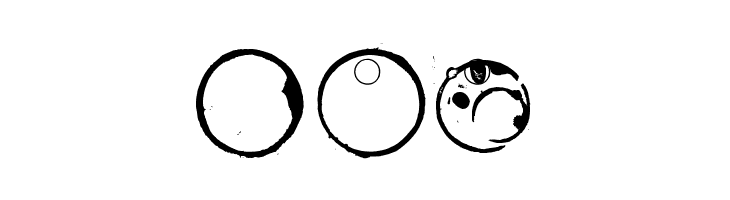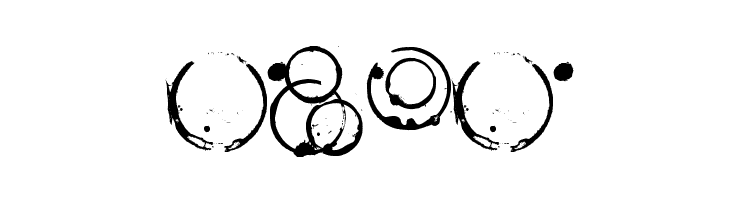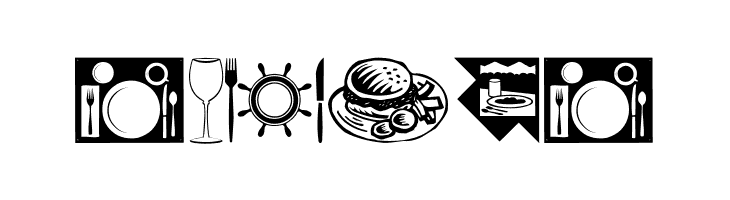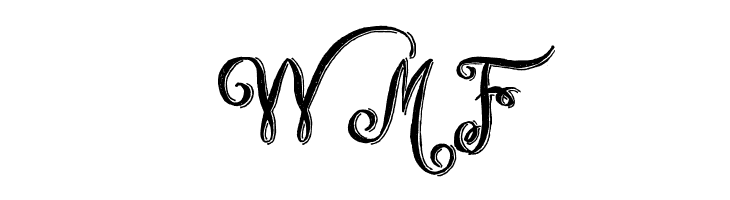
A bold decorative icon font with food and dining motifs.
A whimsical, hand-drawn chalkboard style font with decorative swirls and shading.
A whimsical dingbat font with tea-themed illustrations.
Decorative font made from coffee cup ring stains.